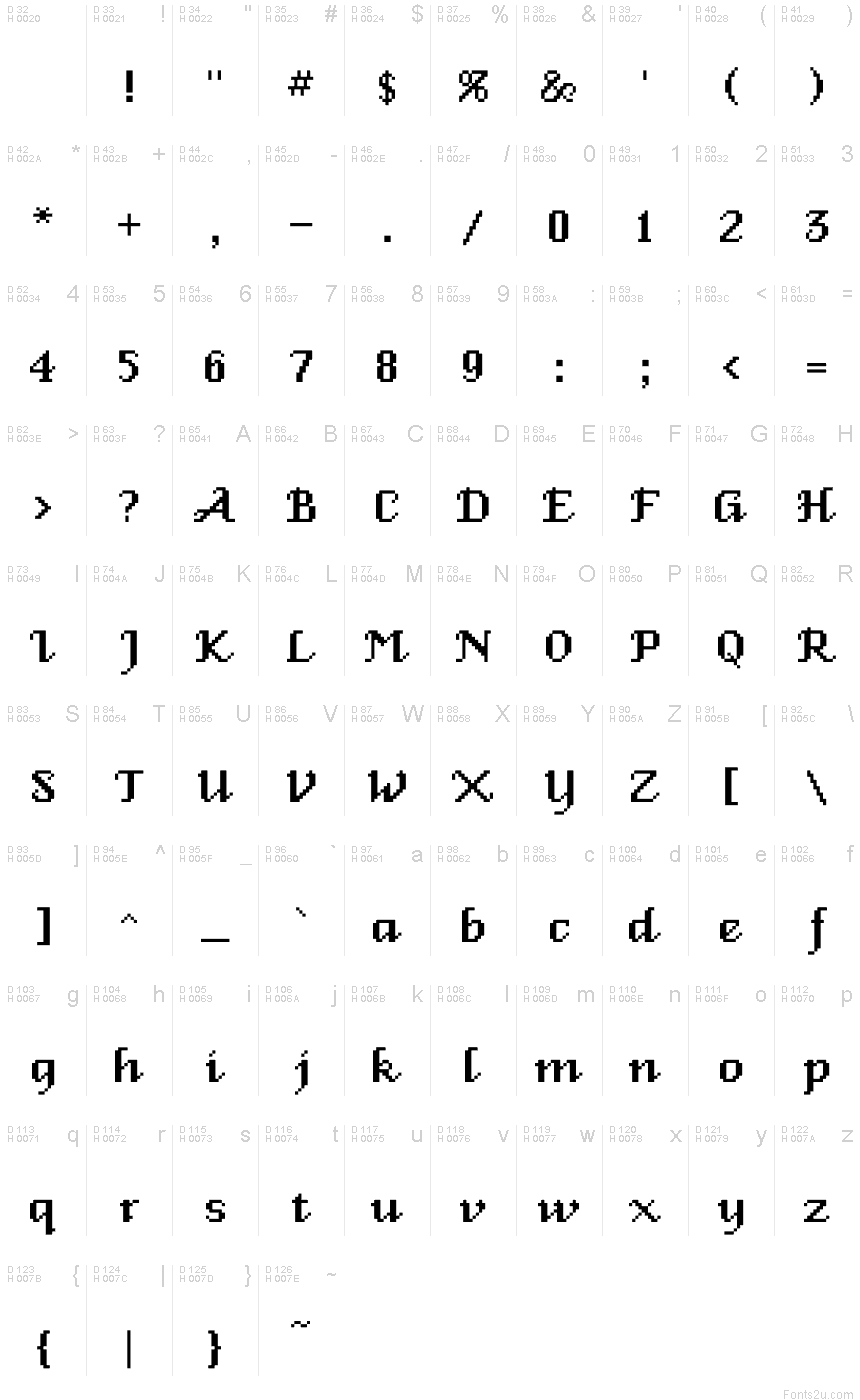
Venice Classic
A handmade true-type version of the old Apple bitmap font "Venice." Won't break in Flash; optimal size is 19px.
TrueType port of Venice, by Apple Computer. Ported by soixantedeux / http://www.soixantedeux.co.nr/, 2006.